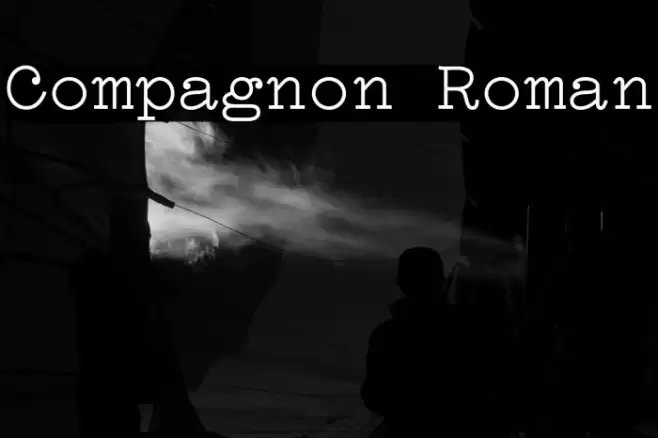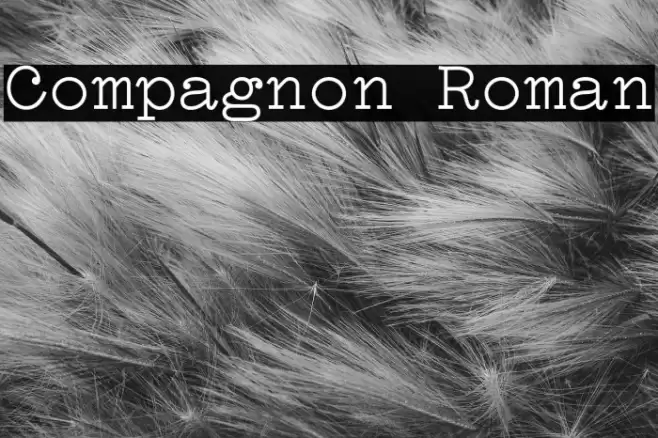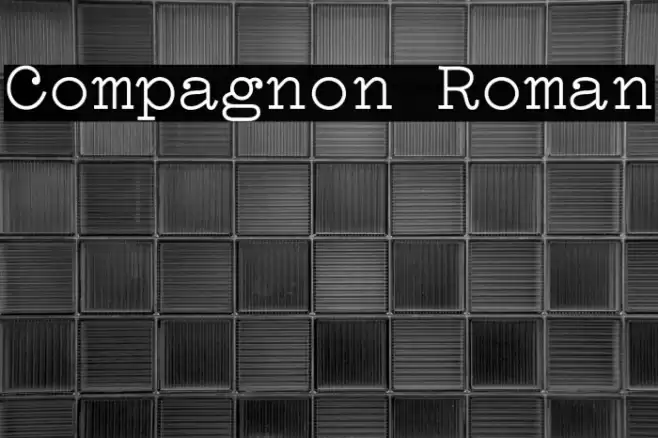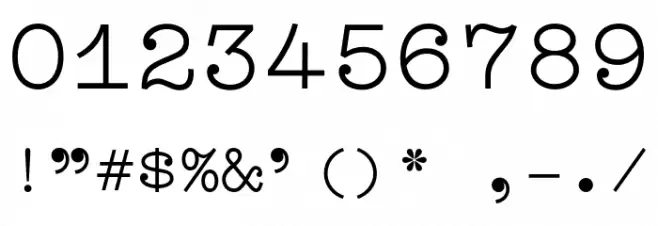
Compagnon Roman Font
Compagnon Roman Description
This font exhibits a classic serif style with a modern twist, characterized by its distinct slab serifs and uniform stroke width. The uppercase letters are bold and commanding, while the lowercase letters maintain a consistent and readable form. The numerals are clear and well-proportioned, making them suitable for various applications. Special characters are elegantly designed, adding to the font's versatility. The overall appearance is structured yet approachable, making it ideal for both formal and casual contexts.
A modern serif font with slab serifs and uniform stroke width from Regular fonts.